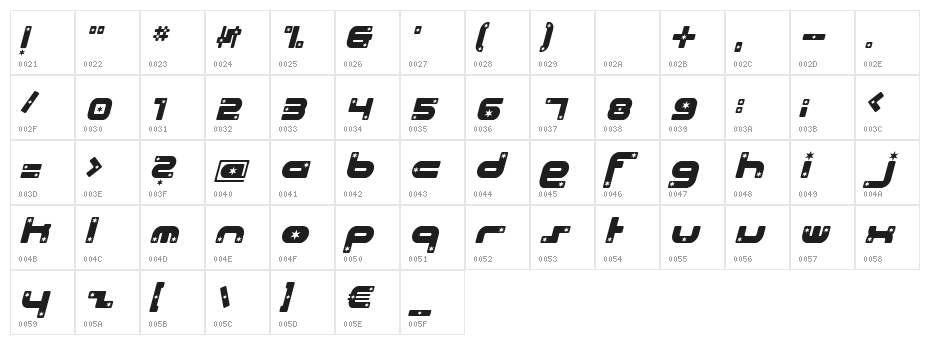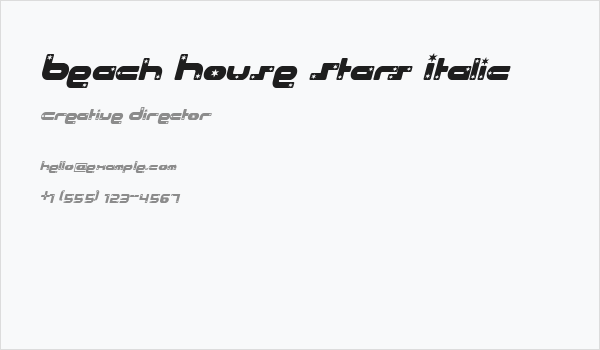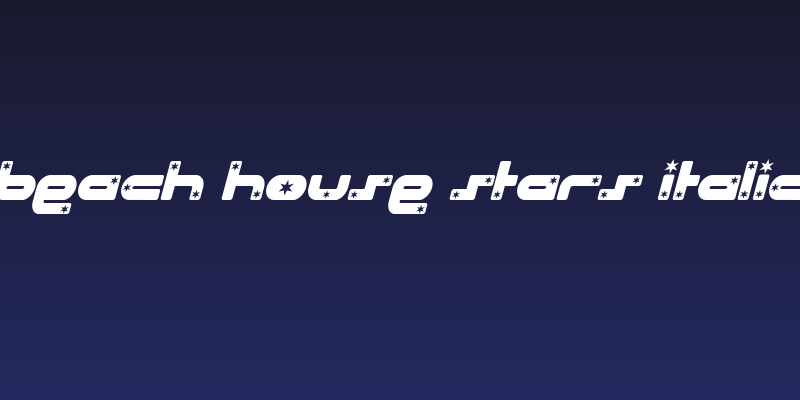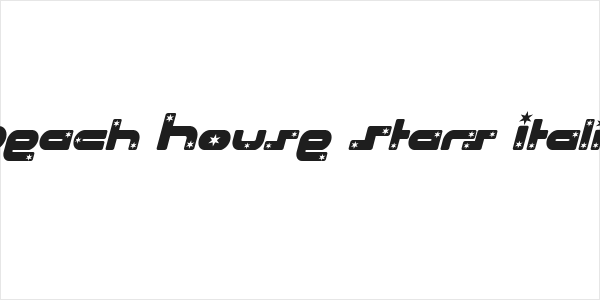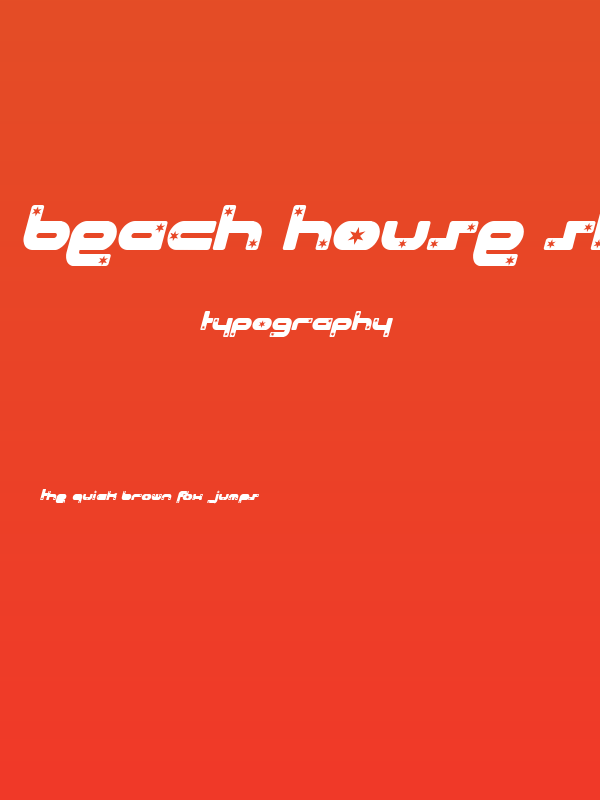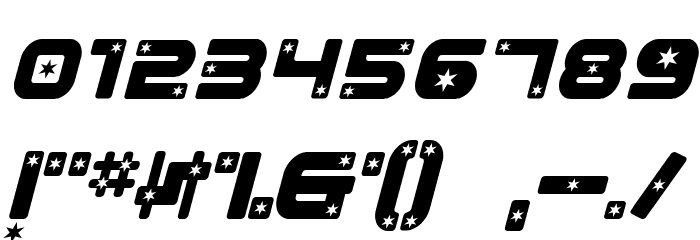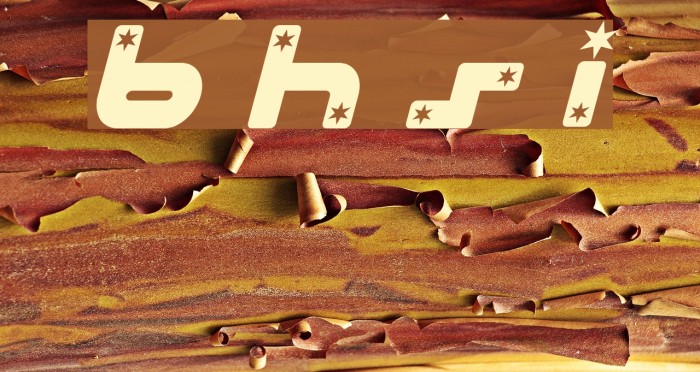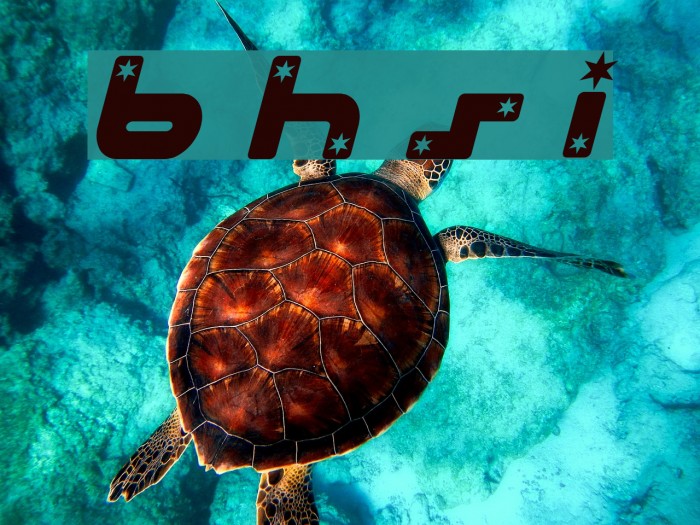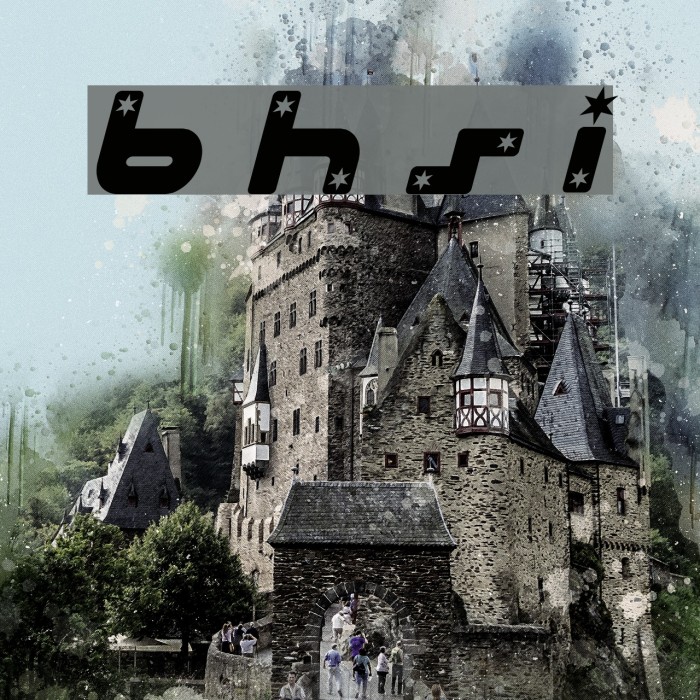
Beach House Stars Italic Font
Beach House Stars Italic Description
This playful and decorative font features a unique design where each character is adorned with star motifs, giving it a whimsical and fun appearance. The letters are bold and rounded, with a consistent italic slant that adds a dynamic and energetic feel. The stars are embedded within the strokes, creating a visually engaging pattern that stands out. This font is perfect for projects that require a touch of creativity and flair, such as children's books, party invitations, or festive event promotions. Its bold presence ensures readability while maintaining a playful aesthetic.
| Proposed Projects | Ideal for children's books, party invitations, and festive event promotions. |